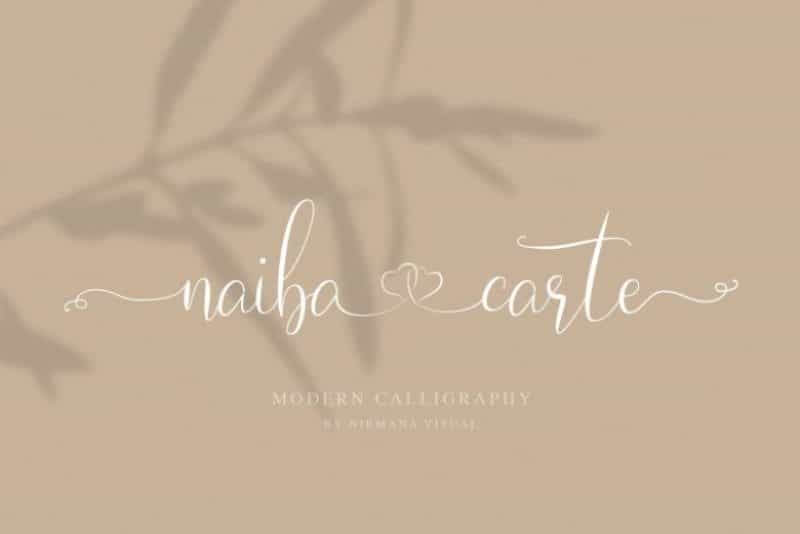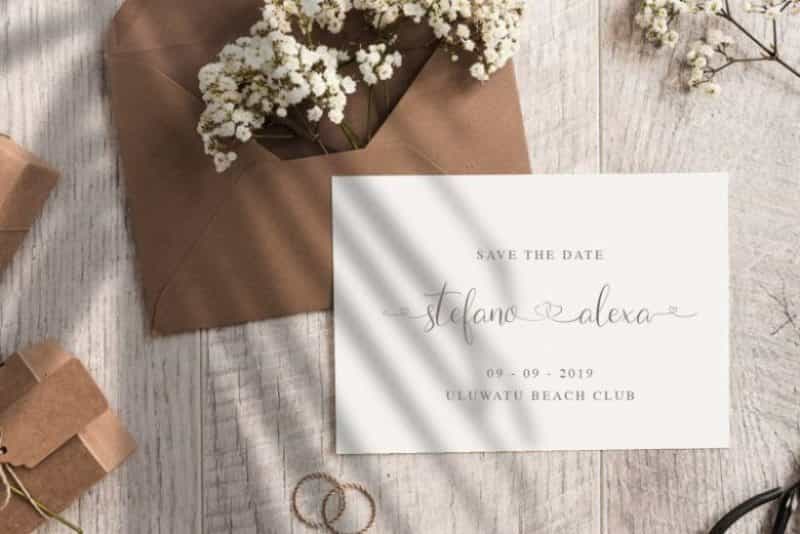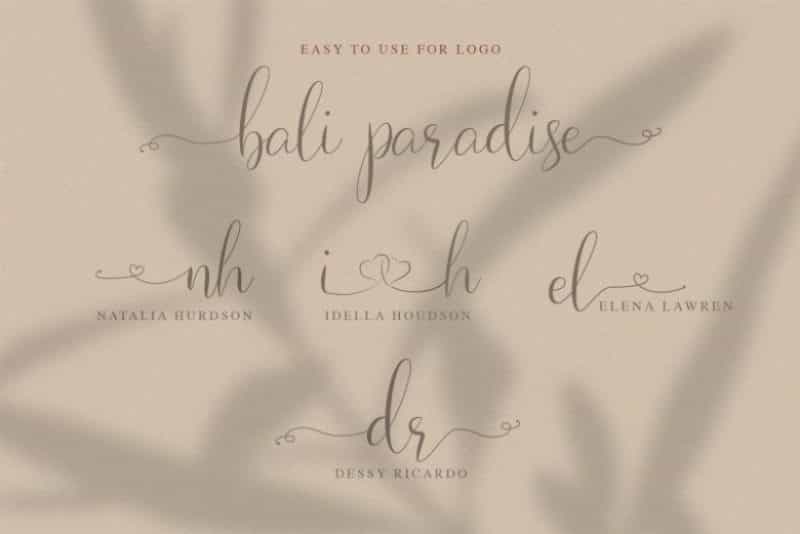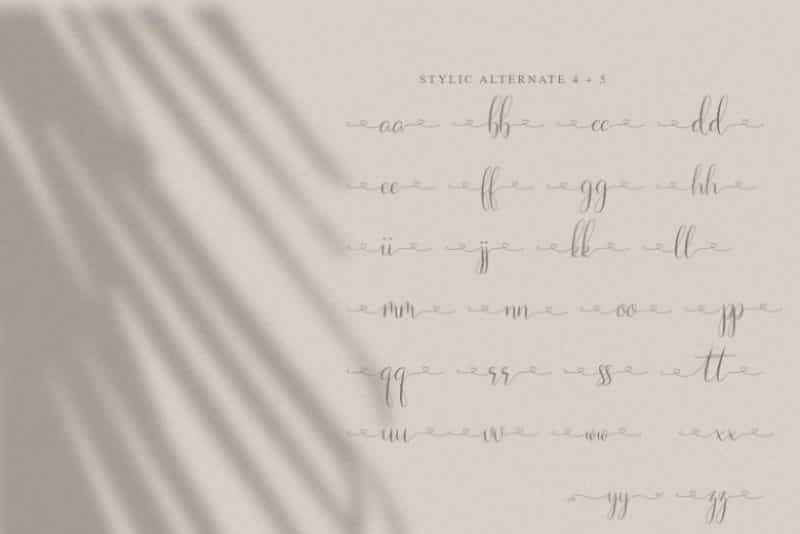
Naibacarte Font with the spirit of romantic love, font name, passion heart is specially designed for the easy usage and perfect for branding purpose, wedding project, logo, quote, etc.